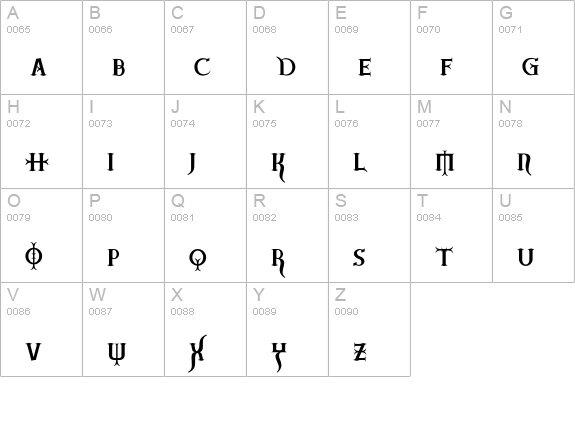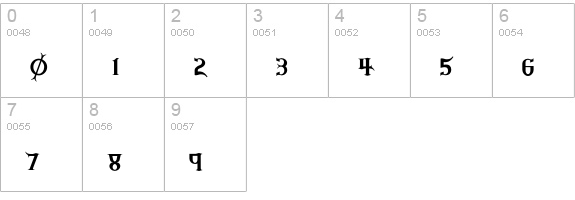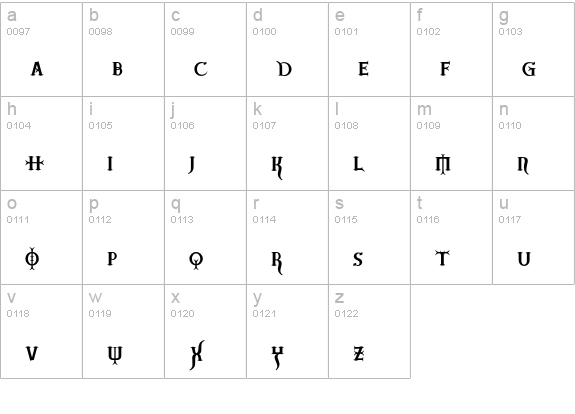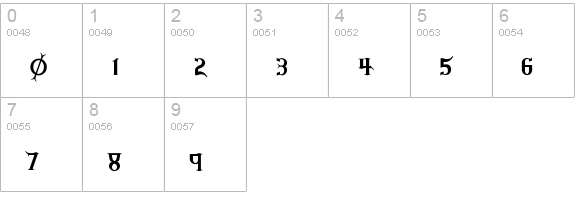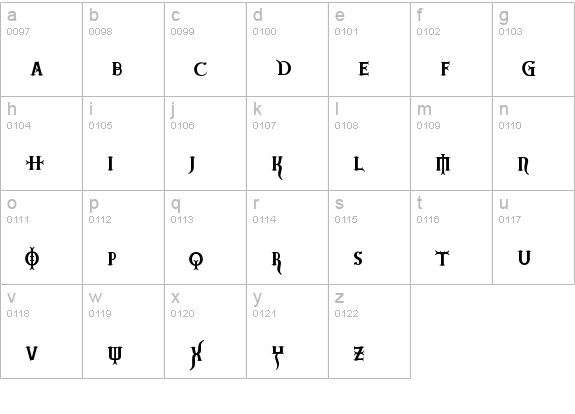
BadAngel-Sinner Font Details
Introducing BadAngel-Sinner font, a captivating and edgy typeface that exudes a rebellious charm with a touch of mystery. This font is perfect for projects that require a bold and daring aesthetic, making a powerful statement with its sharp angles and unique design elements. What sets BadAngel-Sinner font apart is its versatility, allowing you to use it for a wide range of creative projects, from branding to posters to social media graphics. Whether you're looking to add a touch of attitude to your designs or make a bold statement, this font is sure to catch attention and leave a lasting impression. And the best part? BadAngel-Sinner font is completely free to download at FontsMarket.com, making it easily accessible for designers and creatives looking to add a touch of daring to their projects. Don't miss out on this opportunity to elevate your designs with a font that dares to be different. Download BadAngel-Sinner font today and unleash your creativity like never before.